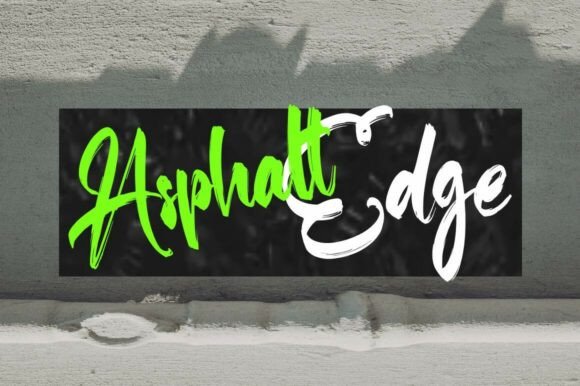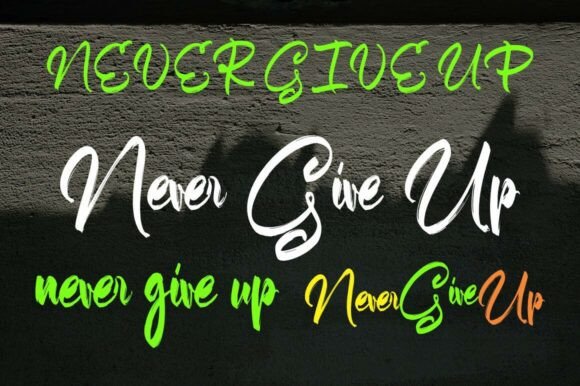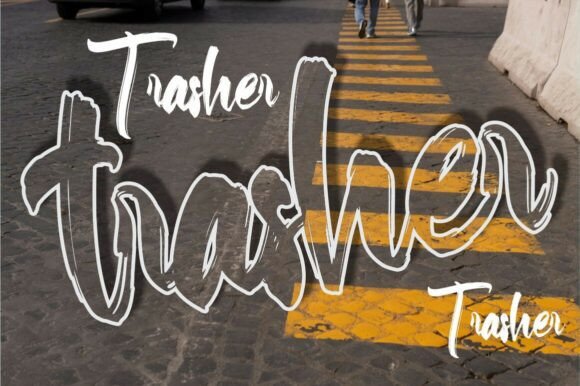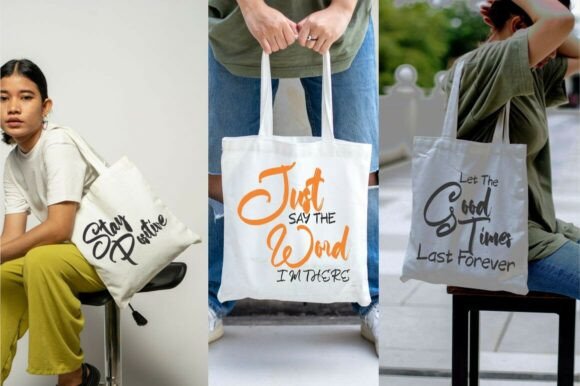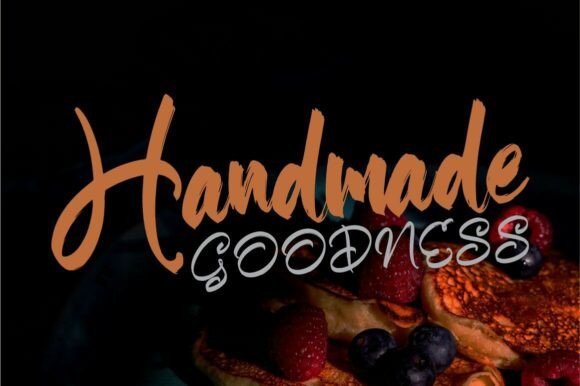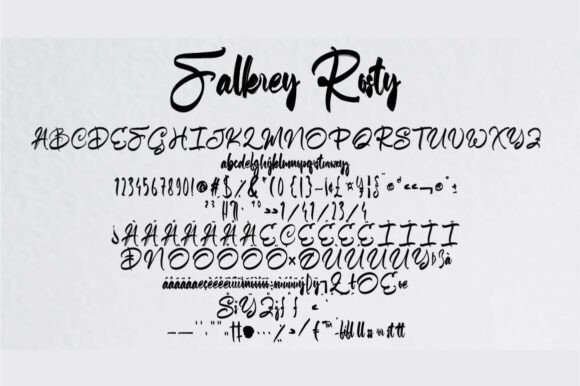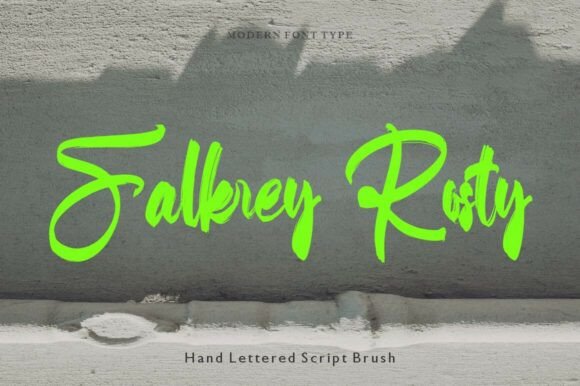
Falkrey Rosty Font: Unleash Your Creativity with this Expressive Handwritten Font
Are you a designer, craftsperson, or creative enthusiast looking for a font that can add a touch of personality to your work? Look no further than Falkrey Rosty, an expressive handwritten font that is sure to take your designs to the next level. With its modern pen strokes, fun characters, and versatile features, Falkrey Rosty is the perfect choice for a wide range of creative projects.
What Makes Falkrey Rosty Special?
Falkrey Rosty is more than just a font – it’s a tool for self-expression. This beautifully crafted handwritten font features:
- Modern pen strokes that give it a fresh and contemporary feel
- Fun characters with little ligatures that add a playful touch
- Alternate lowercase letters for added versatility
- Swashes that can be used to add a decorative flourish to your designs
With Falkrey Rosty, you can create stunning works of art that showcase your unique style and creativity.
Multilingual Support
In today’s globalized world, it’s more important than ever to have a font that can support multiple languages. Falkrey Rosty font supports multilingual, making it the perfect choice for designers and craftspersons who work with clients from diverse linguistic backgrounds.
Whether you’re creating a logo, brochure, or website for a client who speaks English, Spanish, French, or any other language, Falkrey Rosty has got you covered.
Falkrey Rosty font is incredibly versatile and can be used for a wide range of design projects, including:
- Logo design: Create a unique and memorable logo that stands out from the crowd
- Social media graphics: Add a personal touch to your social media posts and stories
- Movie titles: Create eye-catching movie titles that grab the audience’s attention
- Book titles: Design beautiful book covers that showcase the author’s style
- Short texts and long letter texts: Use Falkrey Rosty as a primary or secondary font for your text-based designs
This font pairs perfectly with sans or serif fonts, making it an excellent choice for secondary text fonts.
Why Choose Falkrey Rosty?
So why choose Falkrey Rosty over other fonts? Here are just a few reasons:
- Unique and expressive design that adds a personal touch to your work
- Multilingual support for global clients
- Versatile features that make it suitable for a wide range of design projects
- Easy to read and understand, even in small sizes
With Falkrey Rosty, you can create stunning designs that showcase your creativity and style.
Get Creative with Falkrey Rosty
Ready to unleash your creativity with Falkrey Rosty? Here are some tips to get you started:
- Experiment with different font sizes and styles to create visual interest
- Use swashes and ligatures to add a decorative touch to your designs
- Pair Falkrey Rosty with other fonts to create a unique and harmonious design
- Use Falkrey Rosty for your next design project and see the difference it makes